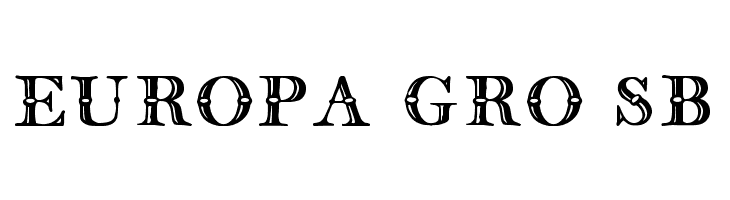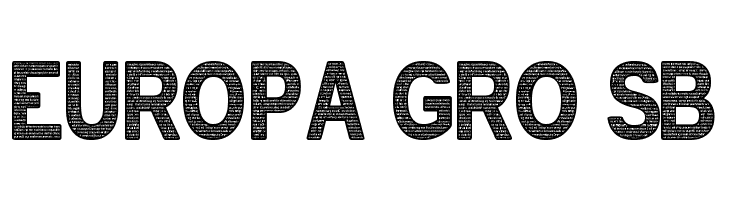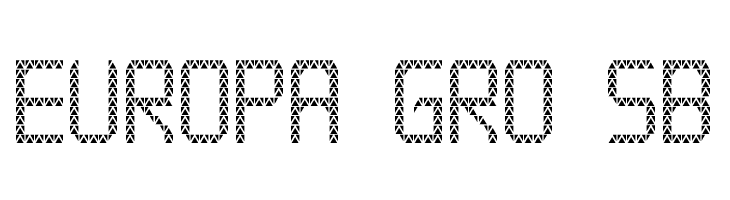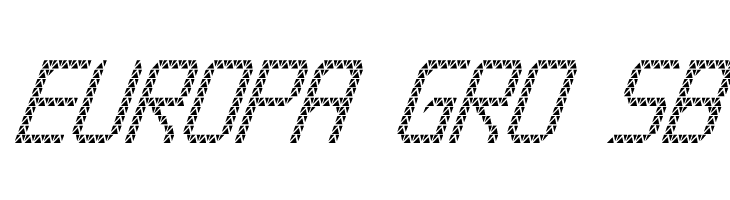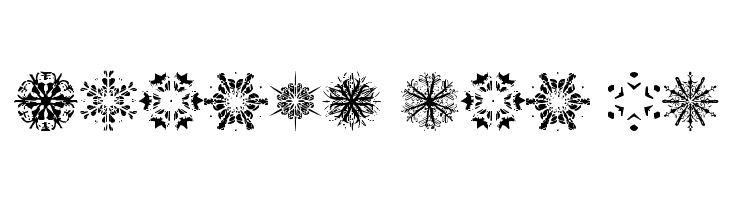
A geometric, patterned font with characters enclosed in squares.
A decorative, vintage-style font with intricate two-line detailing.
A bold, textured uppercase font with a modern and decorative style.
A diverse set of heart shapes with unique patterns and designs.
A geometric font with characters formed by small triangles, offering a modern and bold look.
A modern, geometric font with characters formed by interconnected triangles.
A modern, geometric font with consistent stroke thickness and balanced proportions.
A novelty font using firearm silhouettes as letterforms.
A pictogram icon set for wayfinding and signage.
A decorative font made up of diverse snowflake symbols.